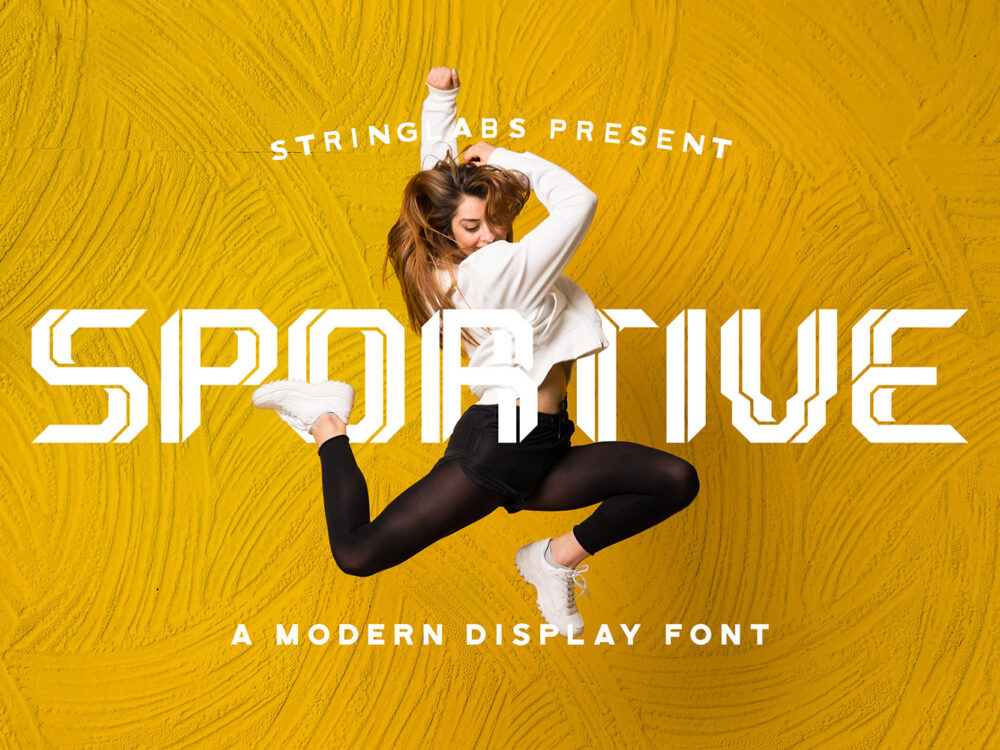
Sportive Free Font
Today we would like to present to you an interesting Sportive Free Font. It is a modern dynamic font that is perfect for a variety of design projects – from posters to clothing prints and advertisements. Improve the quality of your designs using this font. If you like it don’t forget to check out the full version.